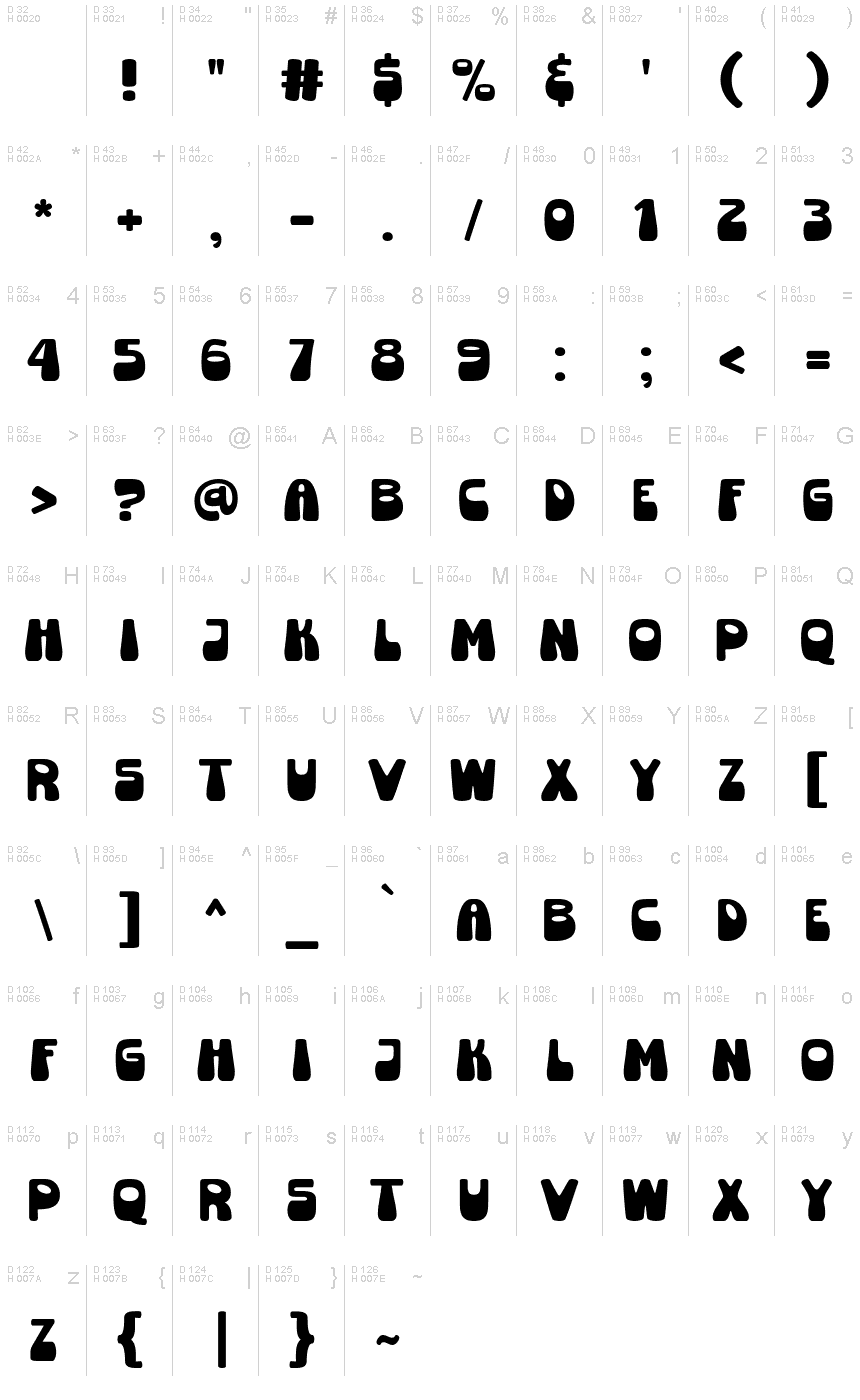
Super Rocky
Super Rocky, designed by the talented fsuarez913, stands out as a quintessential display font with its groovy style and extra-bold weight. This typographic gem is a homage to the exuberant flair of retro design, resonating with the energy of 70s disco dance floors. Its robust and lively letterforms are crafted to capture attention, making it perfect for projects that demand a touch of nostalgia blended with impactful visual appeal.
Whether you're crafting headlines that need to pop or designing logos that resonate with personality, Super Rocky is your go-to typeface. It's not just a font; it's an experience that transports your audience back to an era where boldness and style walked hand in hand. Embrace the power of Super Rocky for your next creative endeavor and let every word groove with the rhythm of yesteryears!